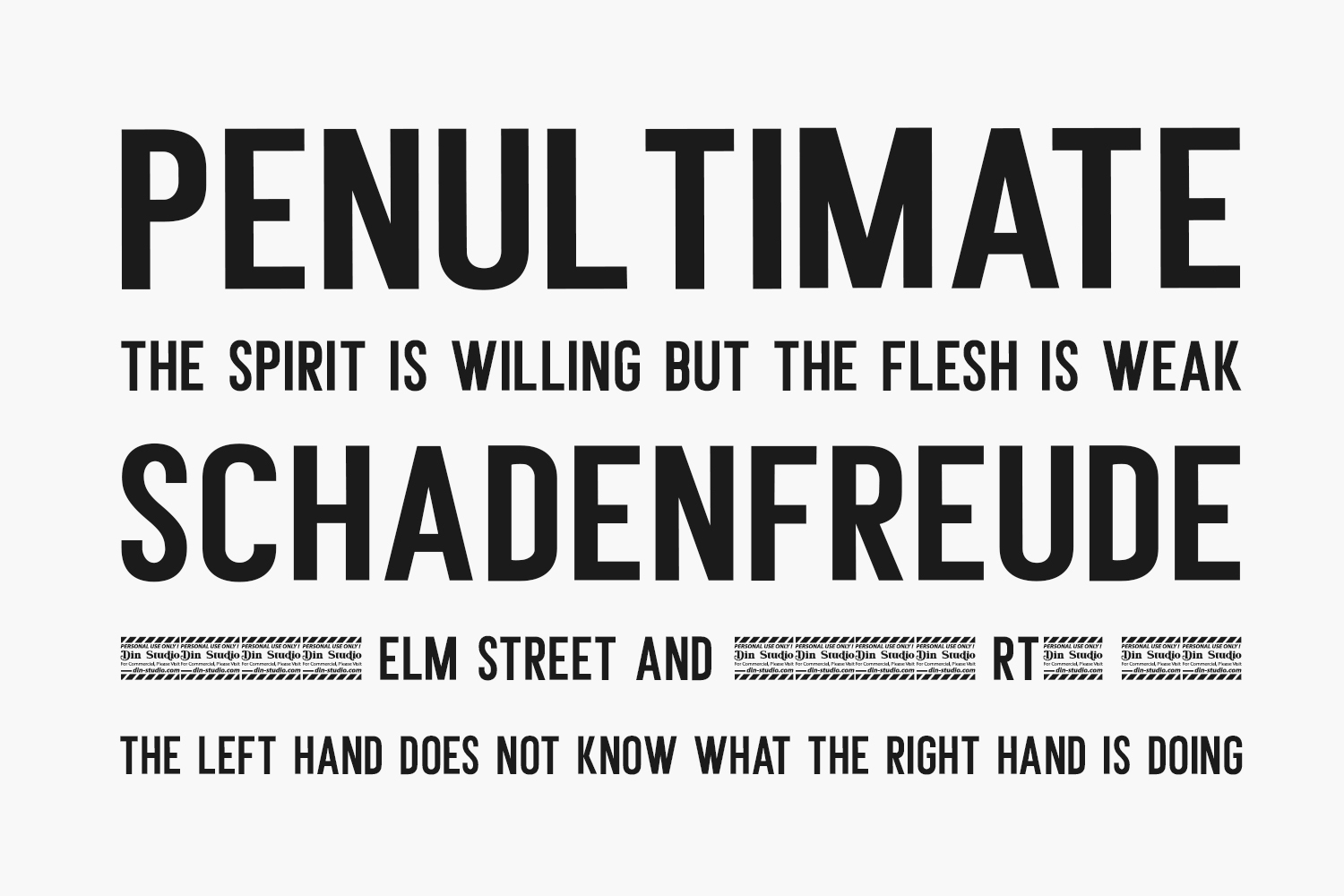
Moonlite Free Font is a minimal and neat sans serif font. It can easily be matched to an incredibly large set of projects, so add it to your creative ideas and notice how it makes them stand out. Moonlite Free Font was designed by Din Studio is a demo and free for personal use only. Please purchase the full version for commercial use.